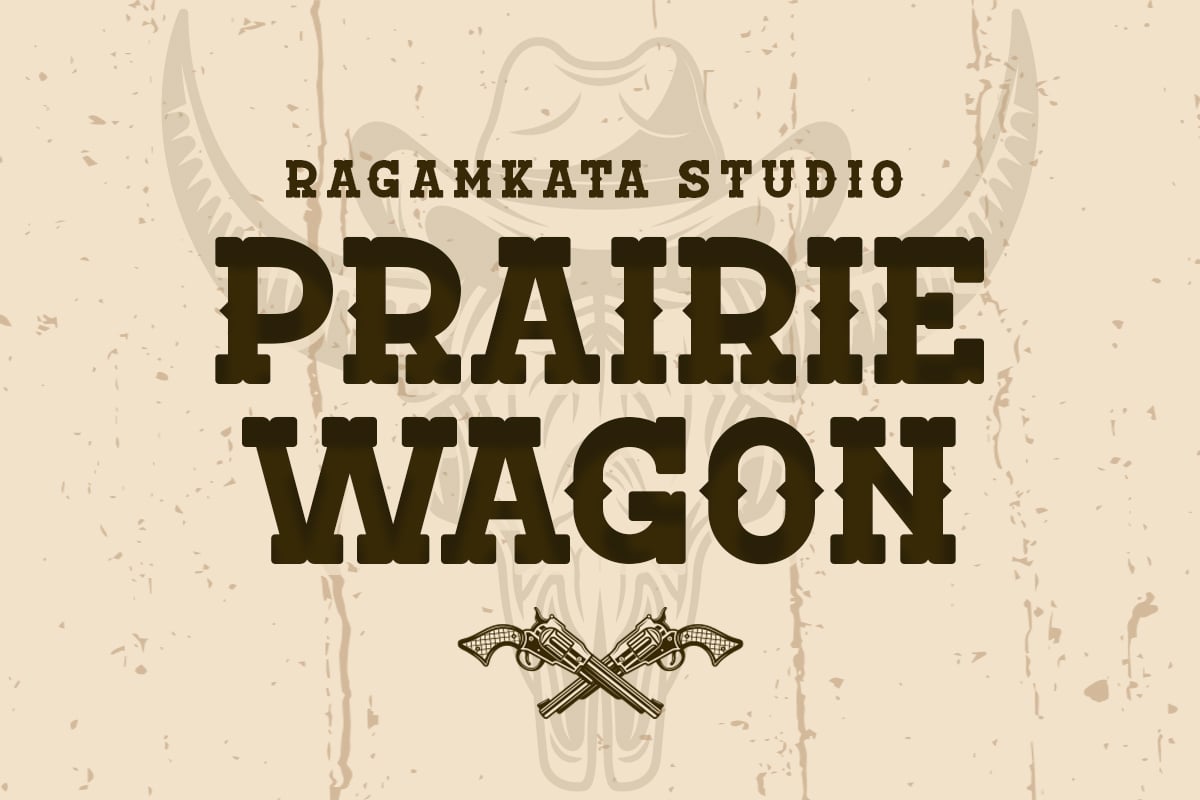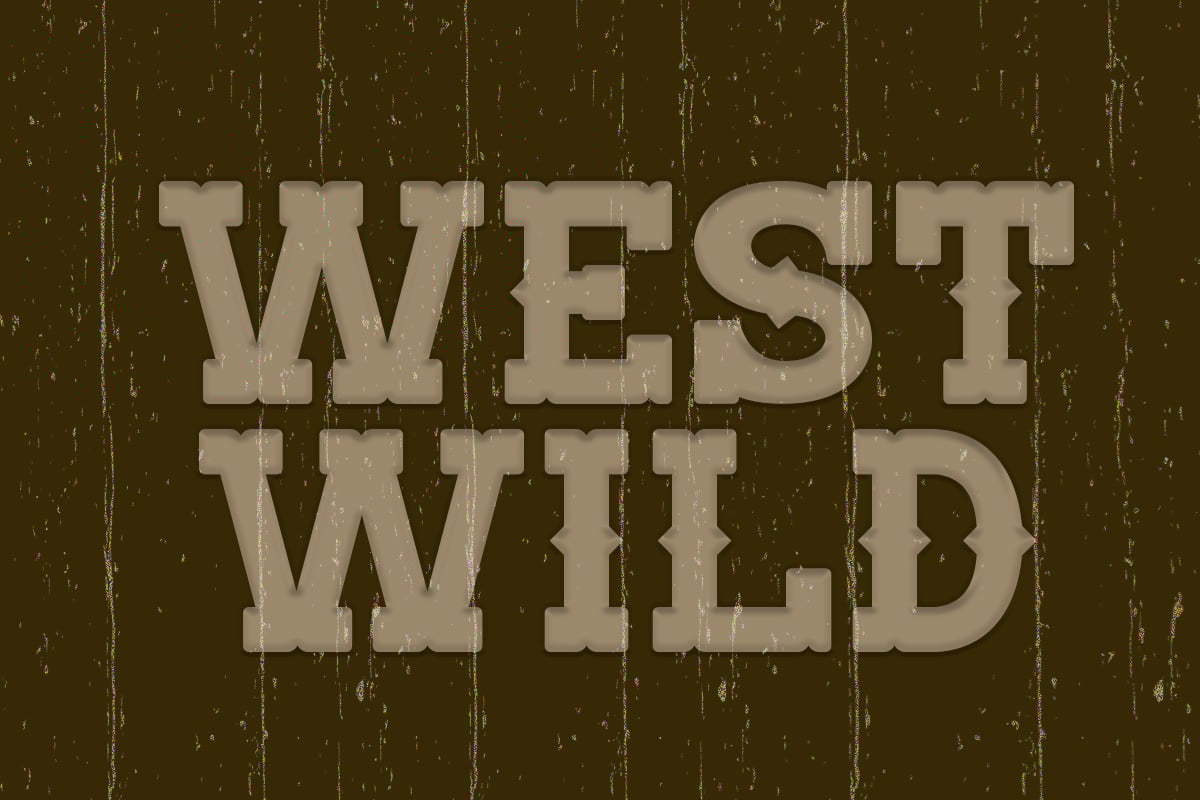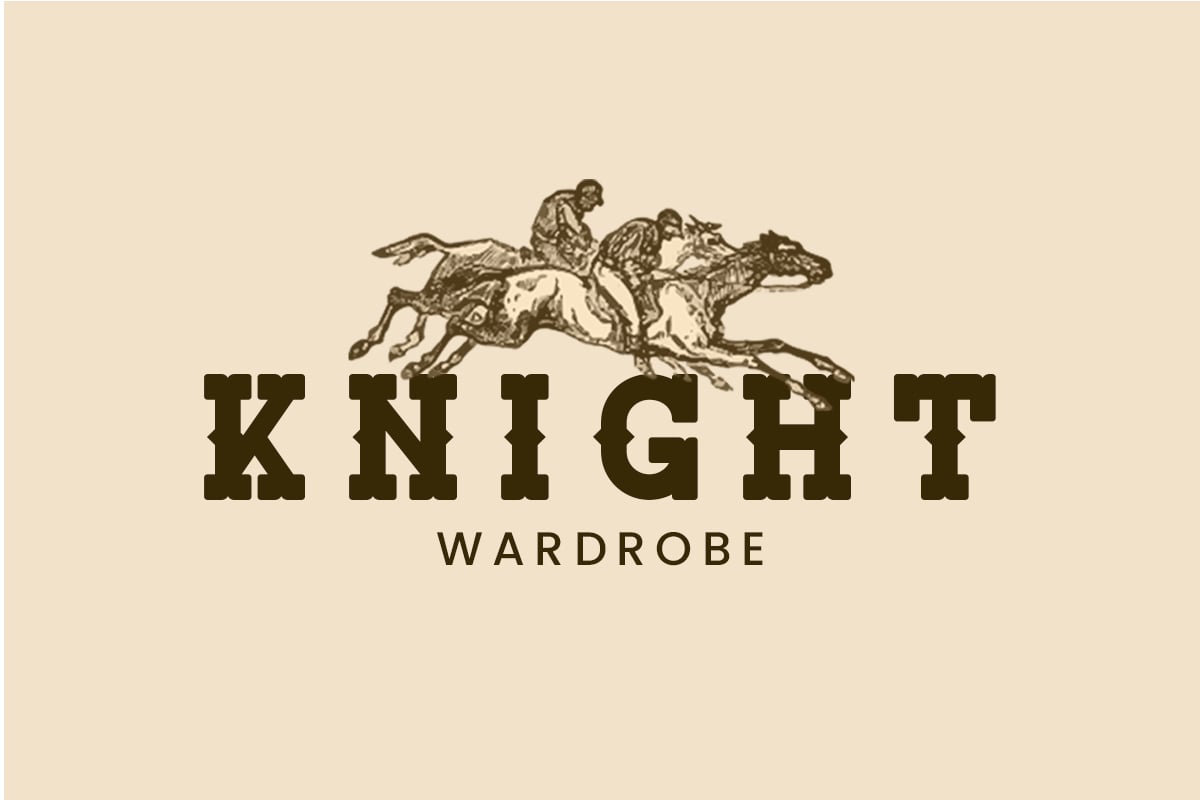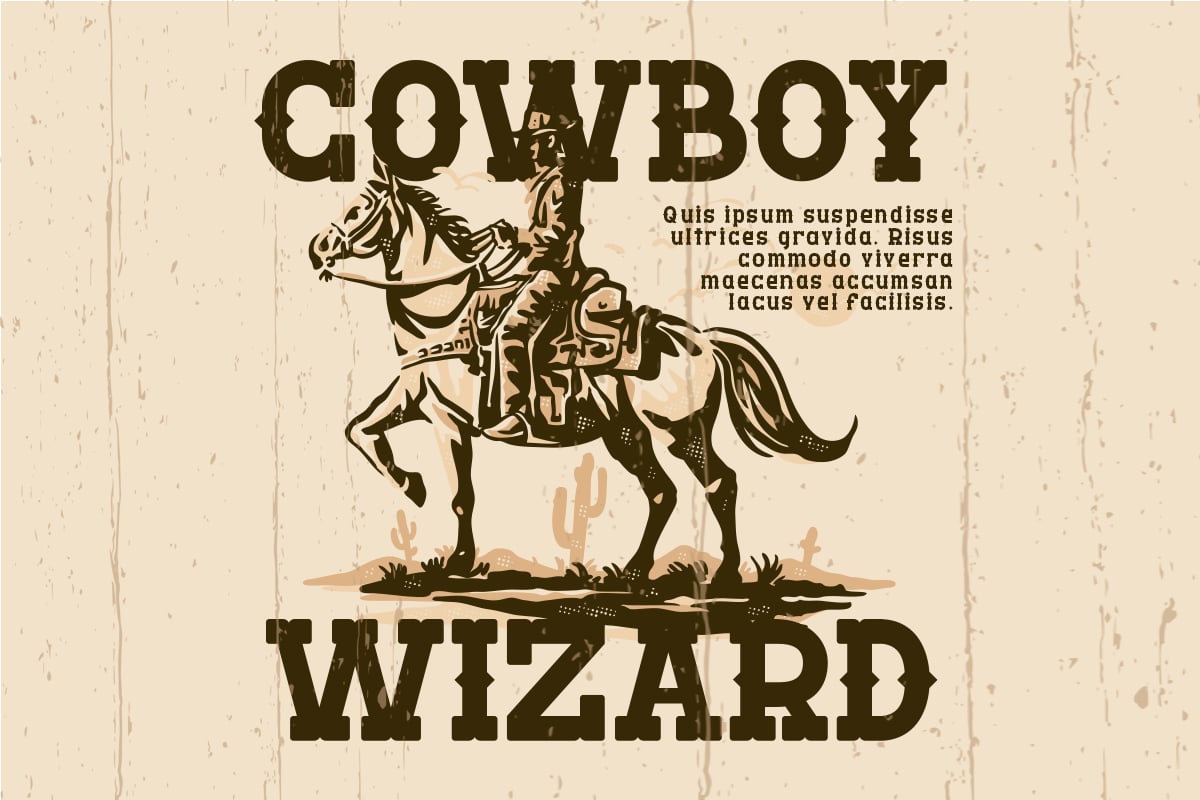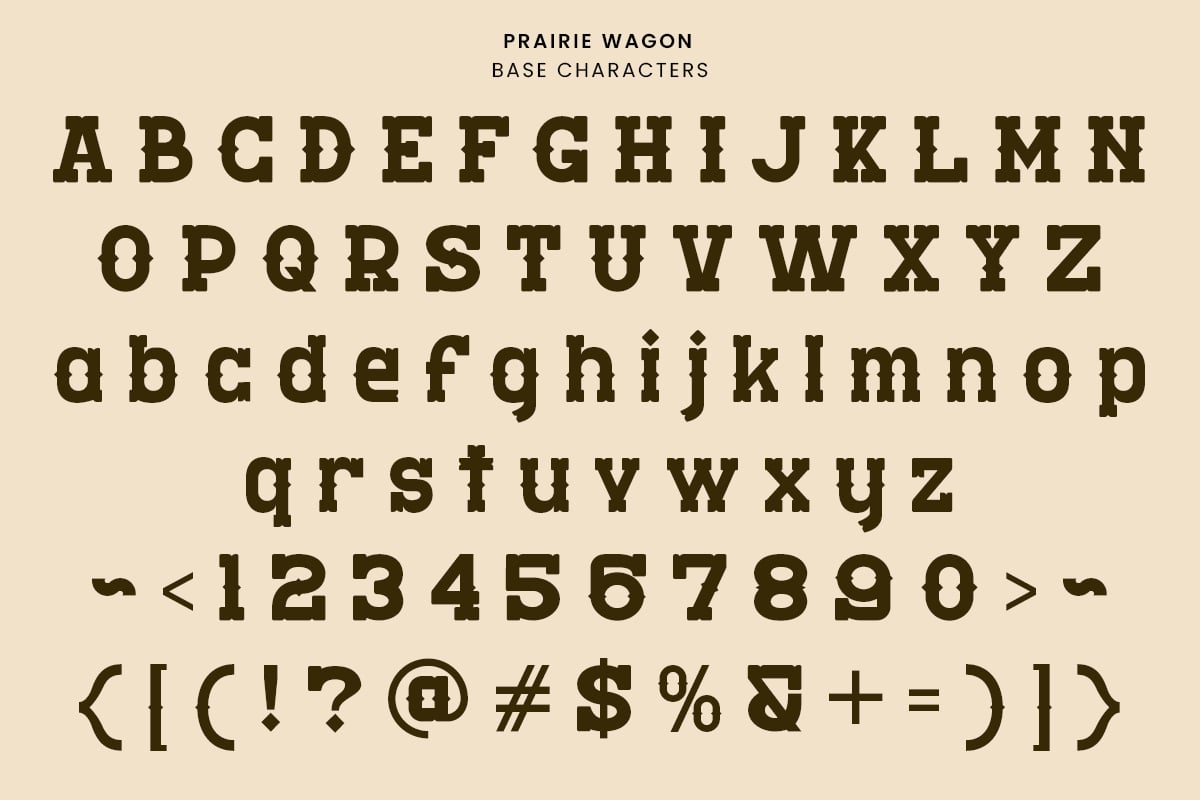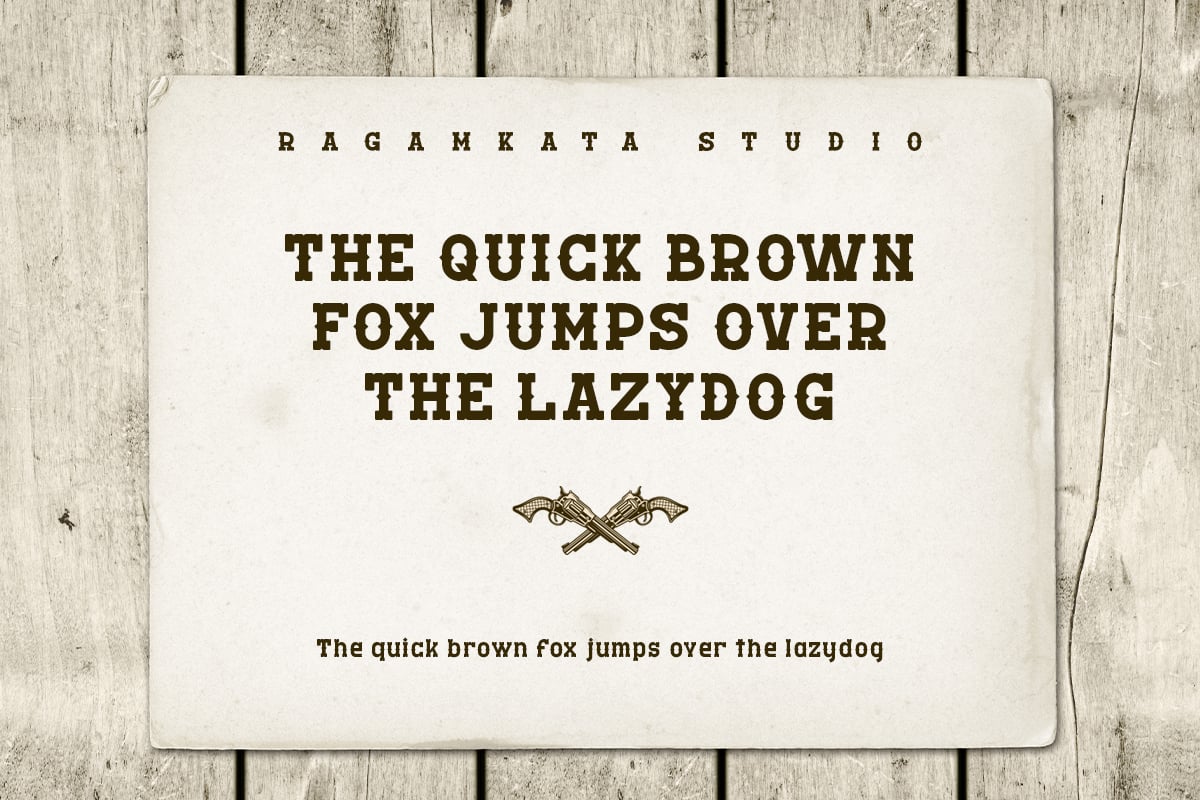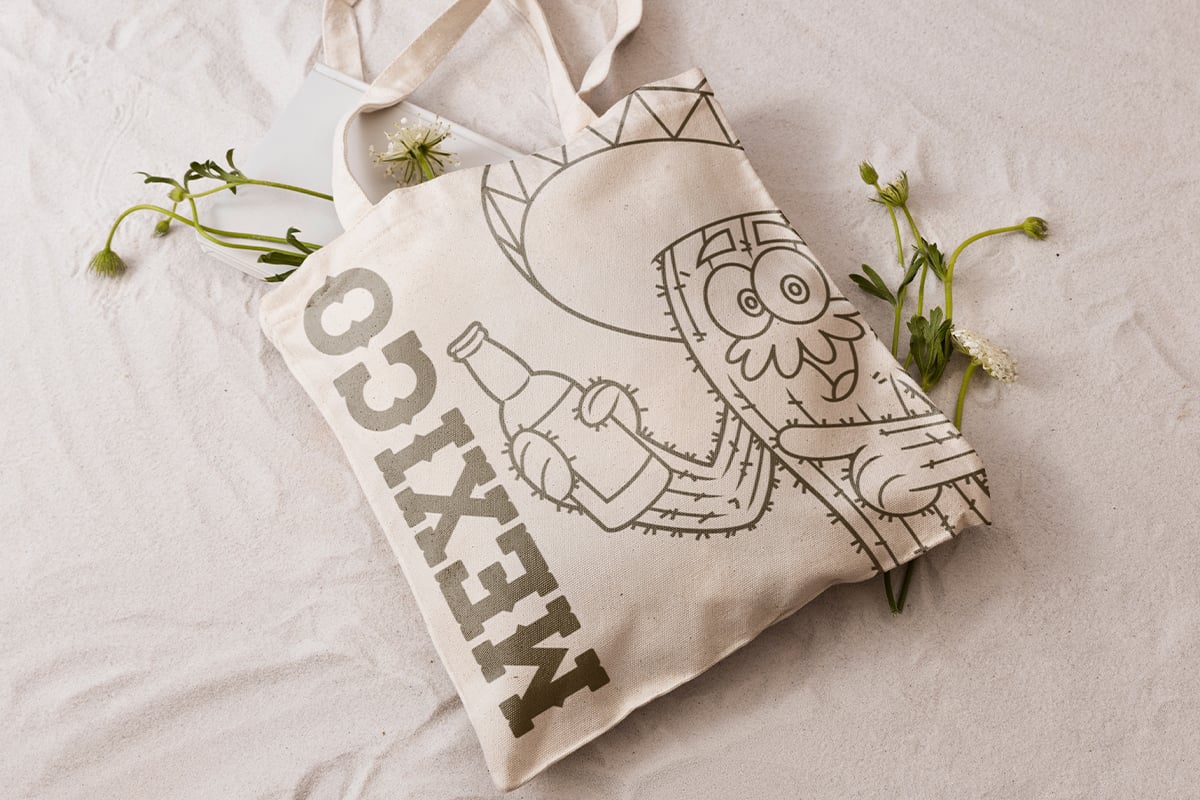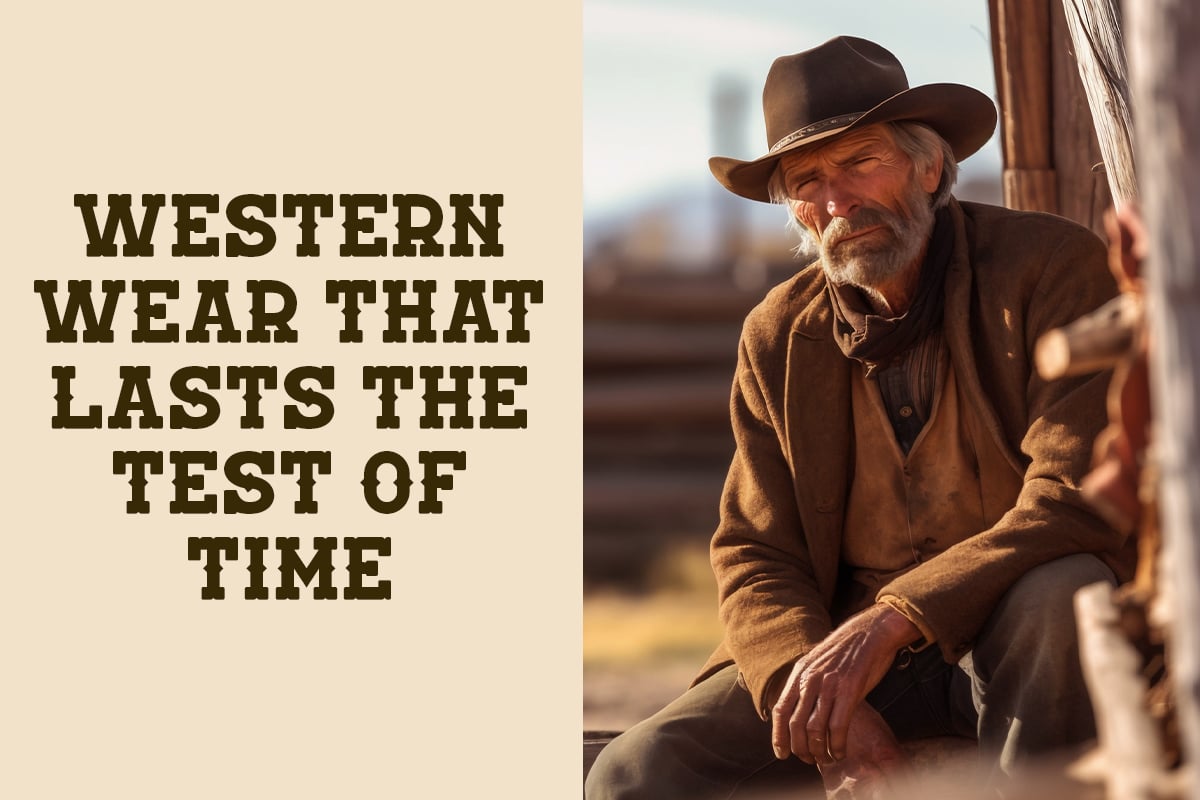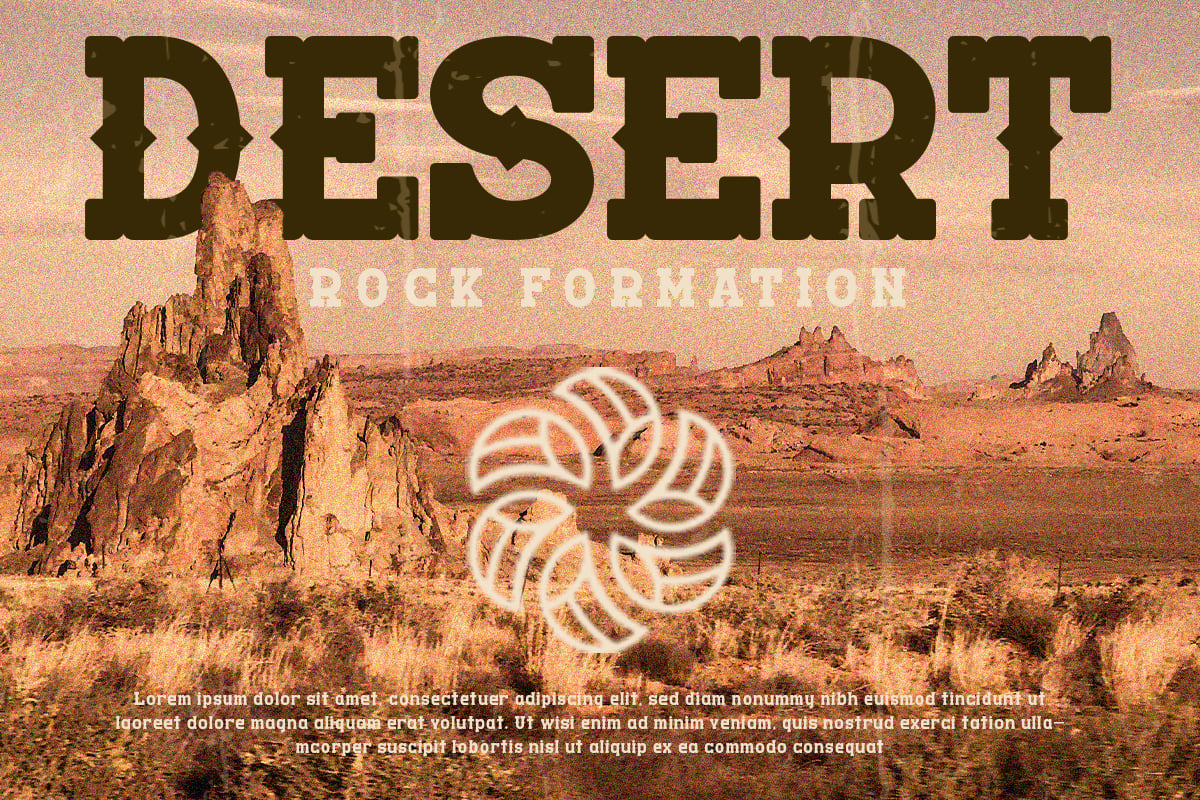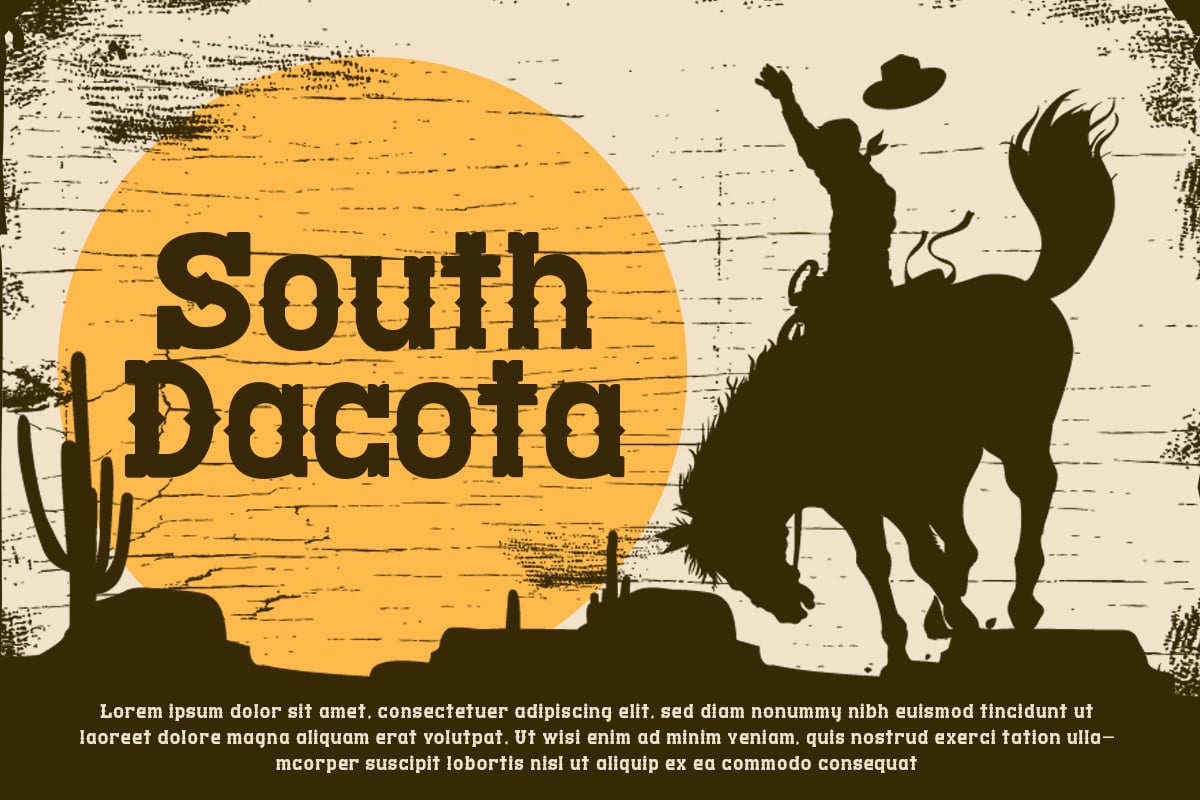
Prairie Wagon – Classic Western Font
Prairie Wagon font blends the timeless essence of classic Western serif with a modern touch, characterized by its rounded edges and bold structure.
This font exudes a sense of rugged elegance, reminiscent of the adventurous spirit of the American frontier.
With its rounded serifs and bold lines, Prairie Wagon strikes a balance between modernity and classic design elements.
It carries a sense of solidity and reliability, making it ideal for conveying a strong visual impact while maintaining a touch of sophistication.
- Unique letterforms